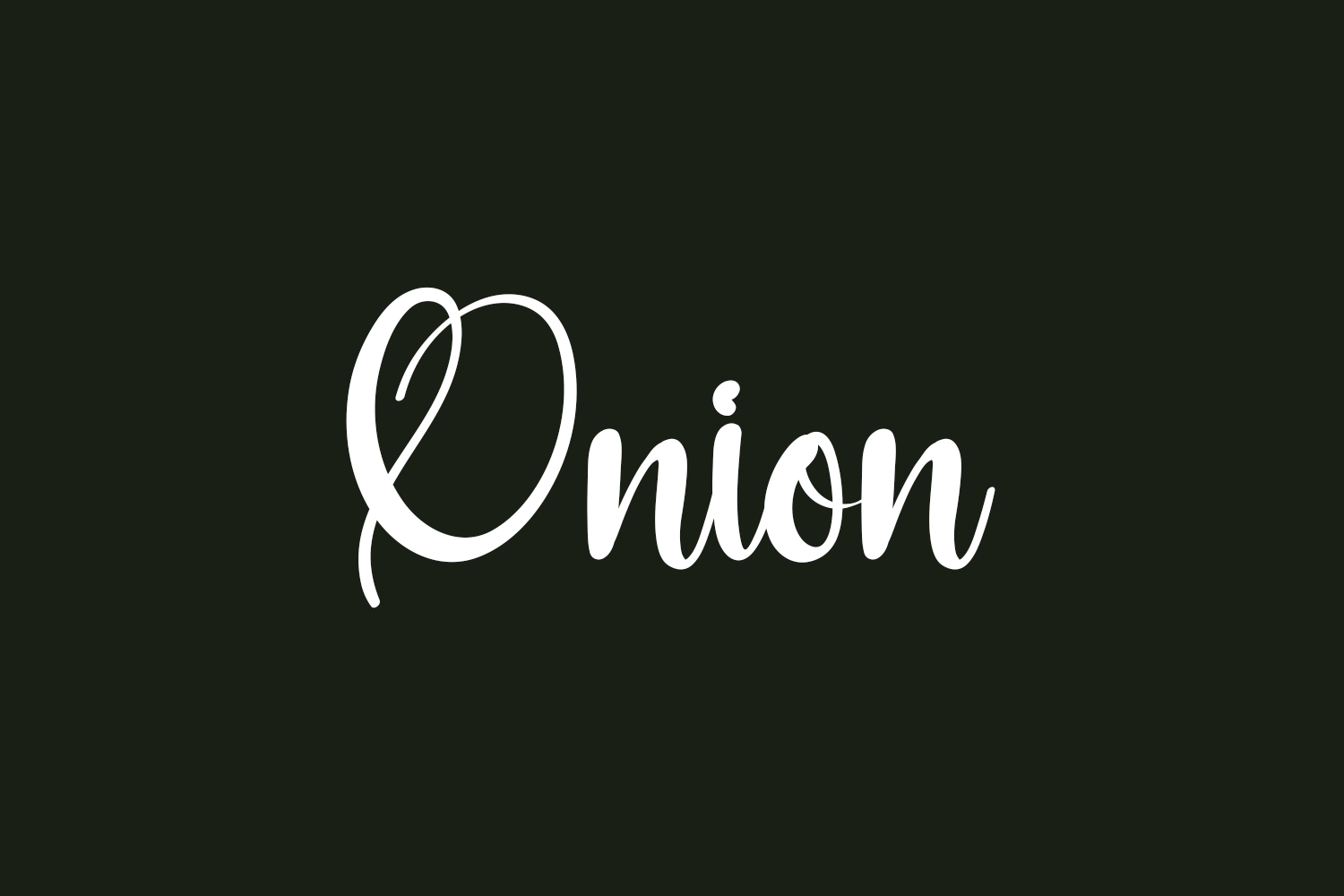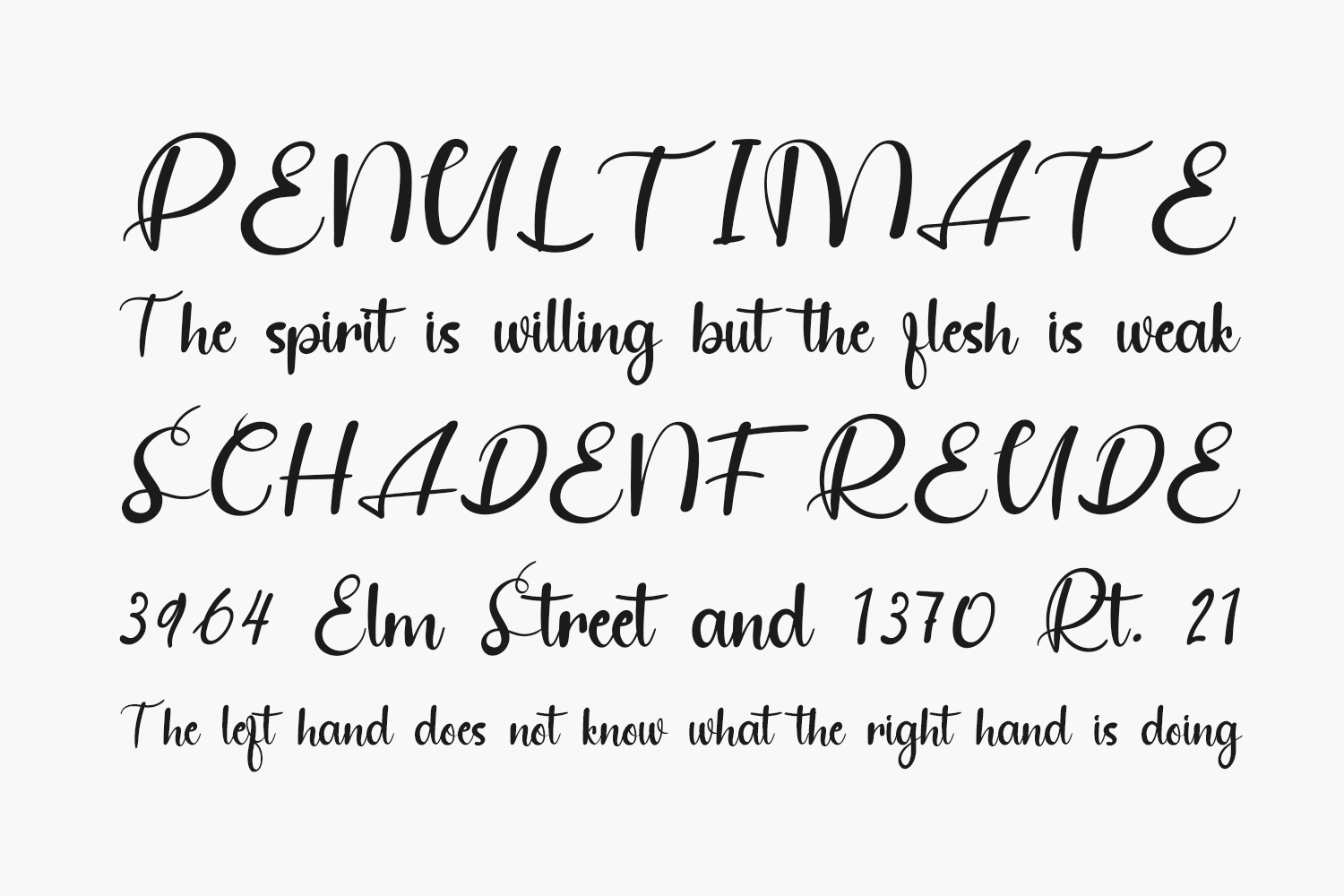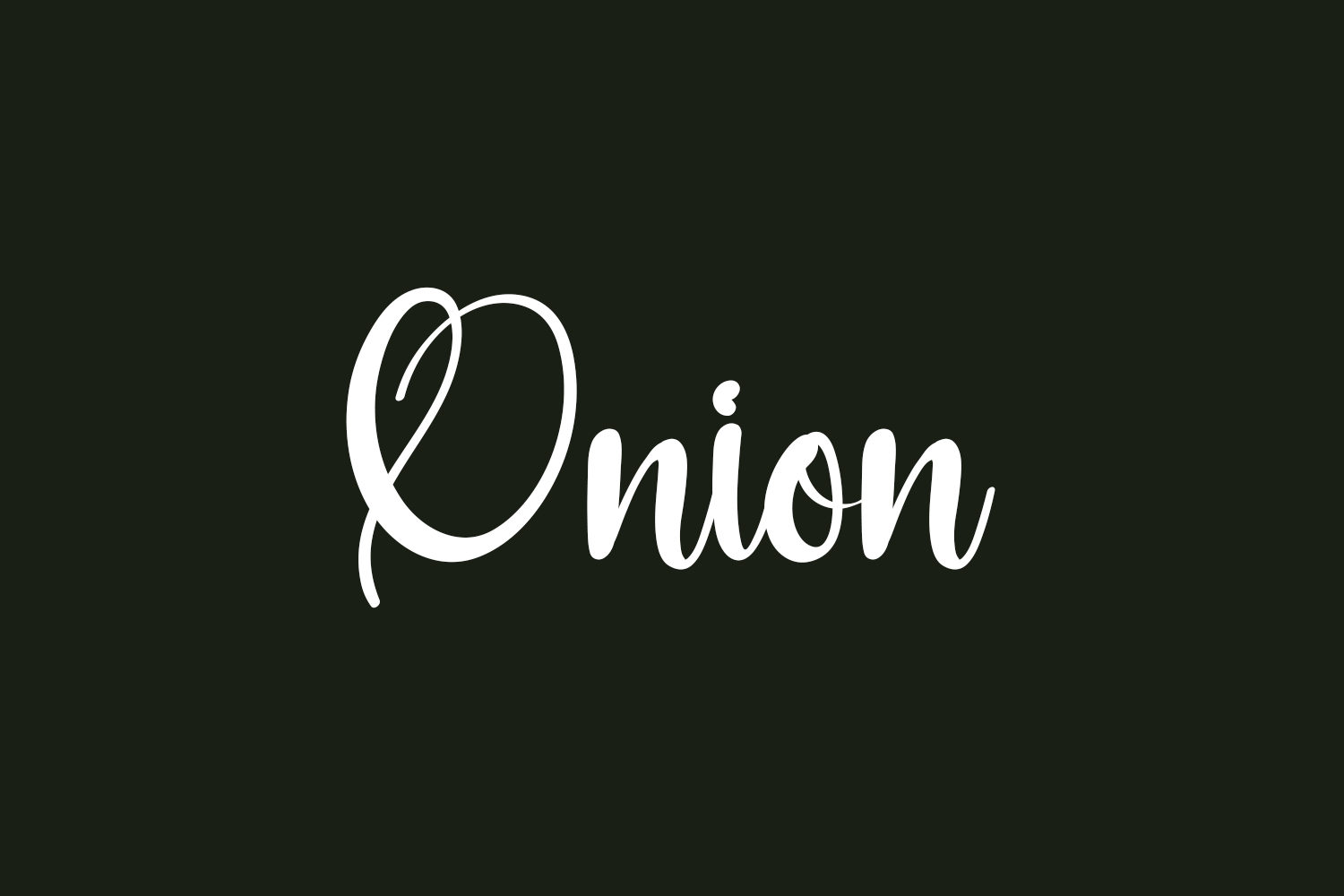
Onion Free Font is a stunning, handcrafted font characterized by its elegant touch, ideal for enhancing your cherished projects. Embrace its uniquely timeless style and unleash its potential to craft exceptional designs. Onion Free Font is free for personal use only. Please purchase the full version for commercial use.